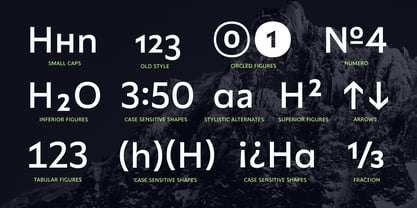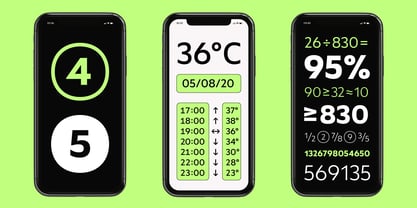
Gezart
by Ani Dimitrova
Gezart Font Family was designed by Ani Dimitrova and published by Ani Dimitrova. Gezart contains 32 styles family package options.
Gezart is a modern sans serif with geometric touch in 32 weights - 16 uprights and its matching italics. The weights are ranging from Hair to Heavy, with one of them (Extra Thin) is for free of charge. Each weight of Gezart contains more than 700 glyphs. The family is equipped for complex, professional typography with Open Type Features including — small caps, localized forms, old-style figures, standard ligatures, subscripts, superscripts, numerators, denominators, numbers in circles arrows, currency symbols and fractions. The Gezart font family is ideally suited for branding & layout design, posters, body text, web, editorial design, and more.
About Ani Dimitrova
Hello, my name is Ani and I’m a typeface designer from Bulgaria.In February 2014 I completed my Master’s degree in Type design at The National Academy of Art in Sofia, Bulgaria. Immediately after completing my higher education, I started working as a type designer at Fontfabric Type Foundry based in Sofia. In 2017 I have left Fontfabric and became a member of the Lettersoup Type Foundry. In 2019 I decided to concentrate on my own type project and founded my type foundry, becoming independent. Also at the moment I’m a teacher of typography at the Varna Free University, Bulgaria :))